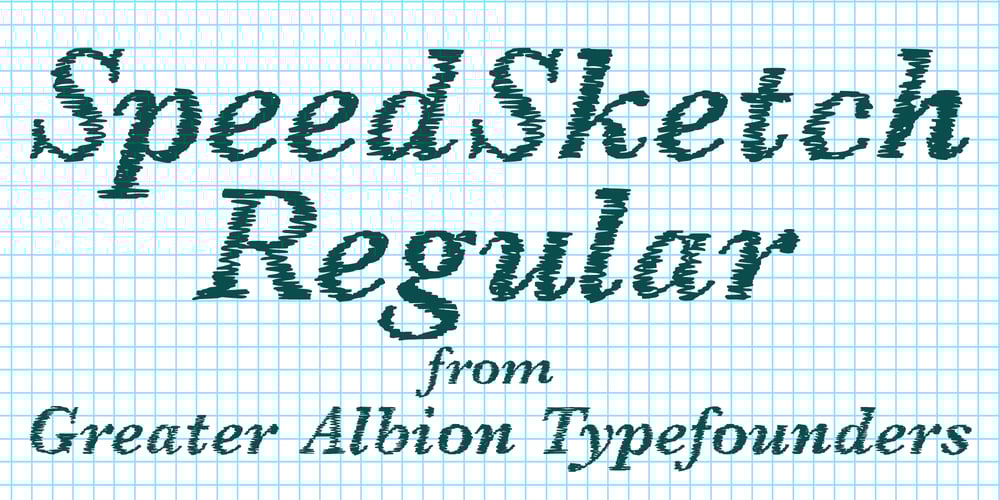
SpeedSketch Font Family was designed by Paul James Lloyd and published by Greater Albion Typefounders. SpeedSketch contains 1 styles and family package options. It’s surprising – it can take more time and effort to make something deliberately and artfully imperfect than it does to make a more conventional design. We certainly found this to be the case when designing ‘SpeedSketch’. Perhaps a more accurate name would have been ‘SlowDraw’ but that wouldn’t really capture the essence of the finished design.